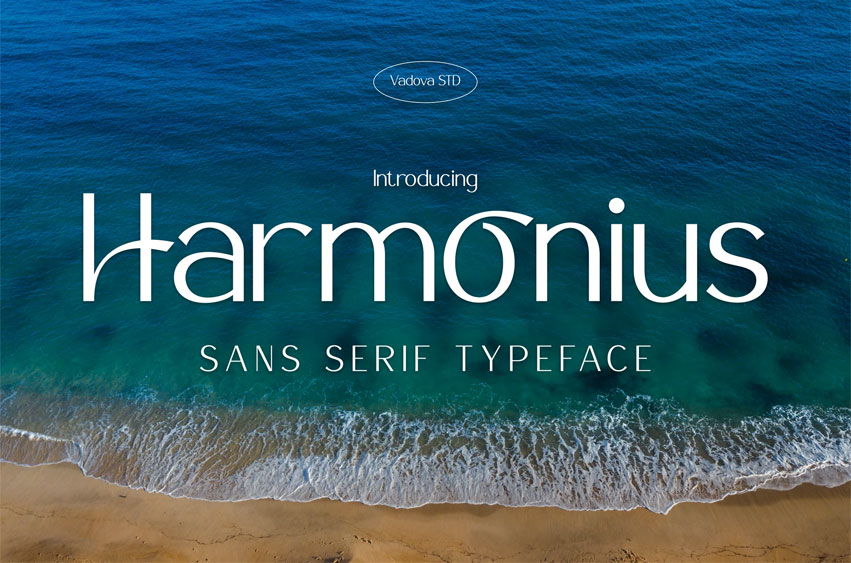
Harmonius Font
Harmonius Font is a sleek and elegant sans serif typeface inspired by ocean waves and coastal serenity. Featuring clean lines, airy spacing, and subtle curves, it evokes a refined yet relaxed aesthetic perfect for travel promotions, fashion branding, lifestyle editorials, or summer campaigns.
Harmonius balances modern structure with fluid charm, offering a sophisticated type solution for design projects seeking calm clarity and stylish appeal.